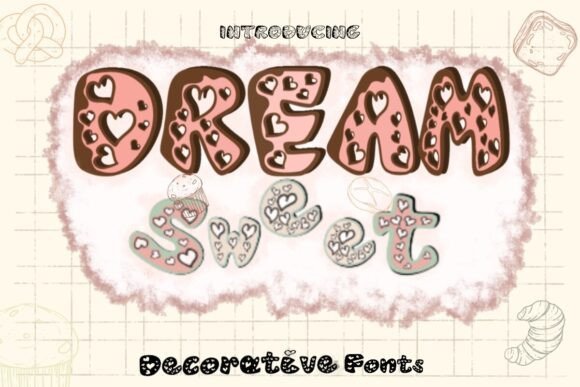
Dream Sweet Font: The Perfect Choice for Your Creative Projects
The “Dream Sweet” font is a playful and charming typeface that conveys warmth and affection. Its bold and rounded letters, mixed with patterns and hearts, make it the perfect choice for a variety of creative projects. In this article, we’ll explore the features and benefits of the Dream Sweet font, and discuss how it can be used to add a touch of cuteness and sweetness to your designs.
What is Dream Sweet Font?
Dream Sweet is a unique and delightful font that is characterized by its bold and rounded letters. The font features a mix of patterns and hearts, which give it a playful and charming feel. The font is perfect for designs that require a touch of warmth and affection, making it ideal for projects such as branding designs, greeting cards, and Valentine’s Day projects.
Key Features of Dream Sweet Font
The Dream Sweet font has several key features that make it stand out from other fonts. Some of its key features include:
- Bold and Rounded Letters: The font features bold and rounded letters that give it a playful and charming feel.
- Patterns and Hearts: The font includes a mix of patterns and hearts, which add to its cuteness and sweetness.
- Delightful Display Style: The font has a delightful display style that makes it perfect for headlines and titles.
Uses of Dream Sweet Font
The Dream Sweet font is versatile and can be used for a variety of creative projects. Some of the most popular uses of the font include:
- Branding Designs: The font is perfect for branding designs that require a touch of warmth and affection.
- Snack Packages: The font is ideal for snack packages that require a playful and charming feel.
- Greeting Cards: The font is perfect for greeting cards, especially those for Valentine’s Day and other romantic occasions.
- Dessert Shops: The font is ideal for dessert shops that want to add a touch of sweetness and cuteness to their branding.
Benefits of Using Dream Sweet Font
The Dream Sweet font offers several benefits to designers and creative professionals. Some of the benefits of using the font include:
- Unique and Playful Feel: The font adds a unique and playful feel to designs, making them stand out from the crowd.
- Easy to Read: The font is easy to read, even at small sizes, making it perfect for body text and headlines.
- Versatile: The font is versatile and can be used for a variety of creative projects.
How to Use Dream Sweet Font
Using the Dream Sweet font is easy. Here are some tips on how to use the font effectively:
- Pair it with Other Fonts: Pair the Dream Sweet font with other fonts to create a unique and interesting combination.
- Use it for Headlines: Use the font for headlines and titles to add a touch of playfulness and charm.
- Experiment with Colors: Experiment with different colors to find the perfect combination that works with the font.
The Dream Sweet font is a playful and charming typeface that conveys warmth and affection. Its bold and rounded letters, mixed with patterns and hearts, make it the perfect choice for a variety of creative projects. Whether you’re designing branding materials, greeting cards, or dessert shop signage, the Dream Sweet font is sure to add a touch of cuteness and sweetness to your designs.
- What is the Dream Sweet font?: The Dream Sweet font is a playful and charming typeface that conveys warmth and affection.
- What are the key features of the Dream Sweet font?: The font features bold and rounded letters, patterns, and hearts.
- What are some popular uses of the Dream Sweet font?: The font is perfect for branding designs, snack packages, greeting cards, and dessert shops.